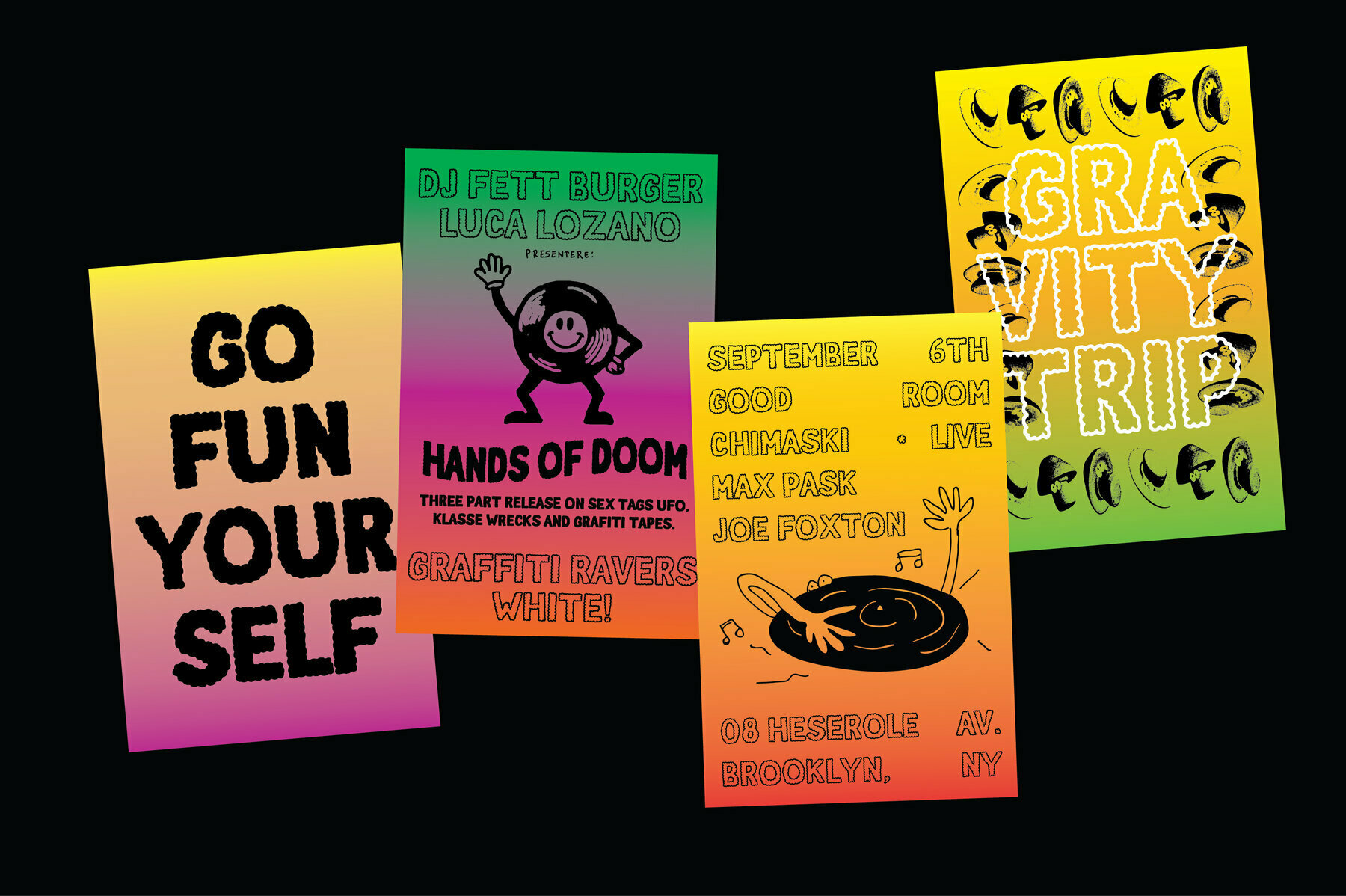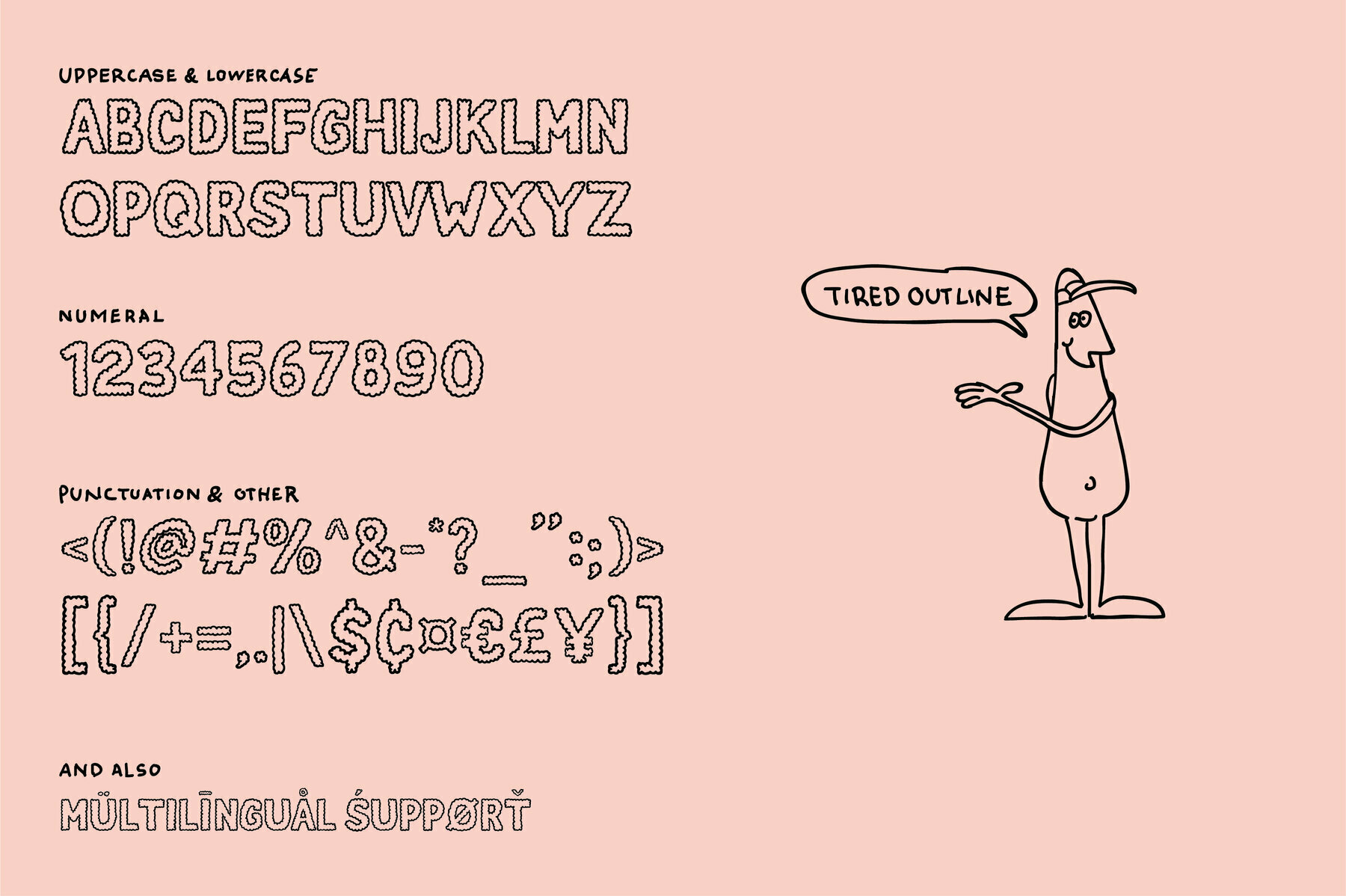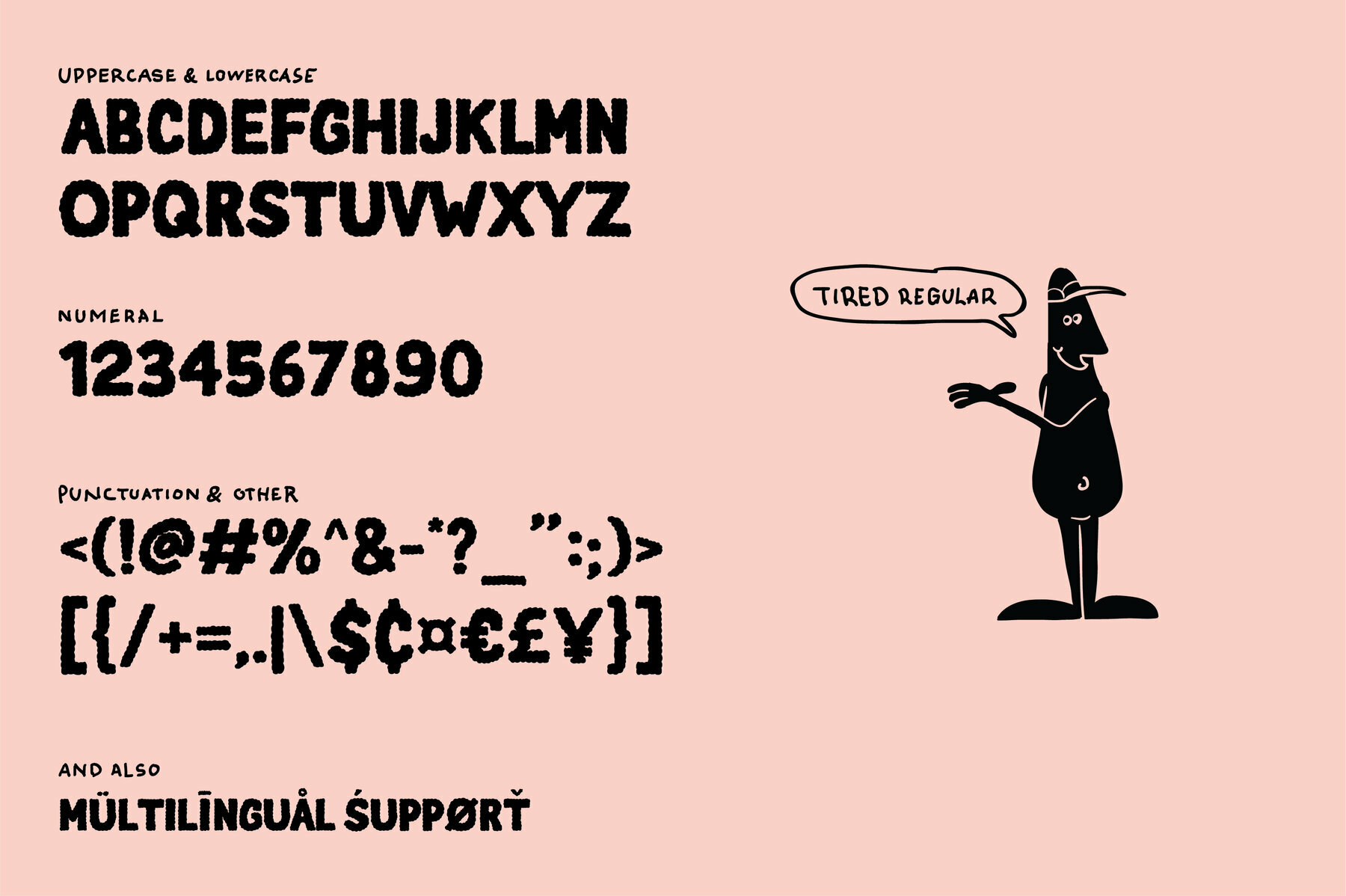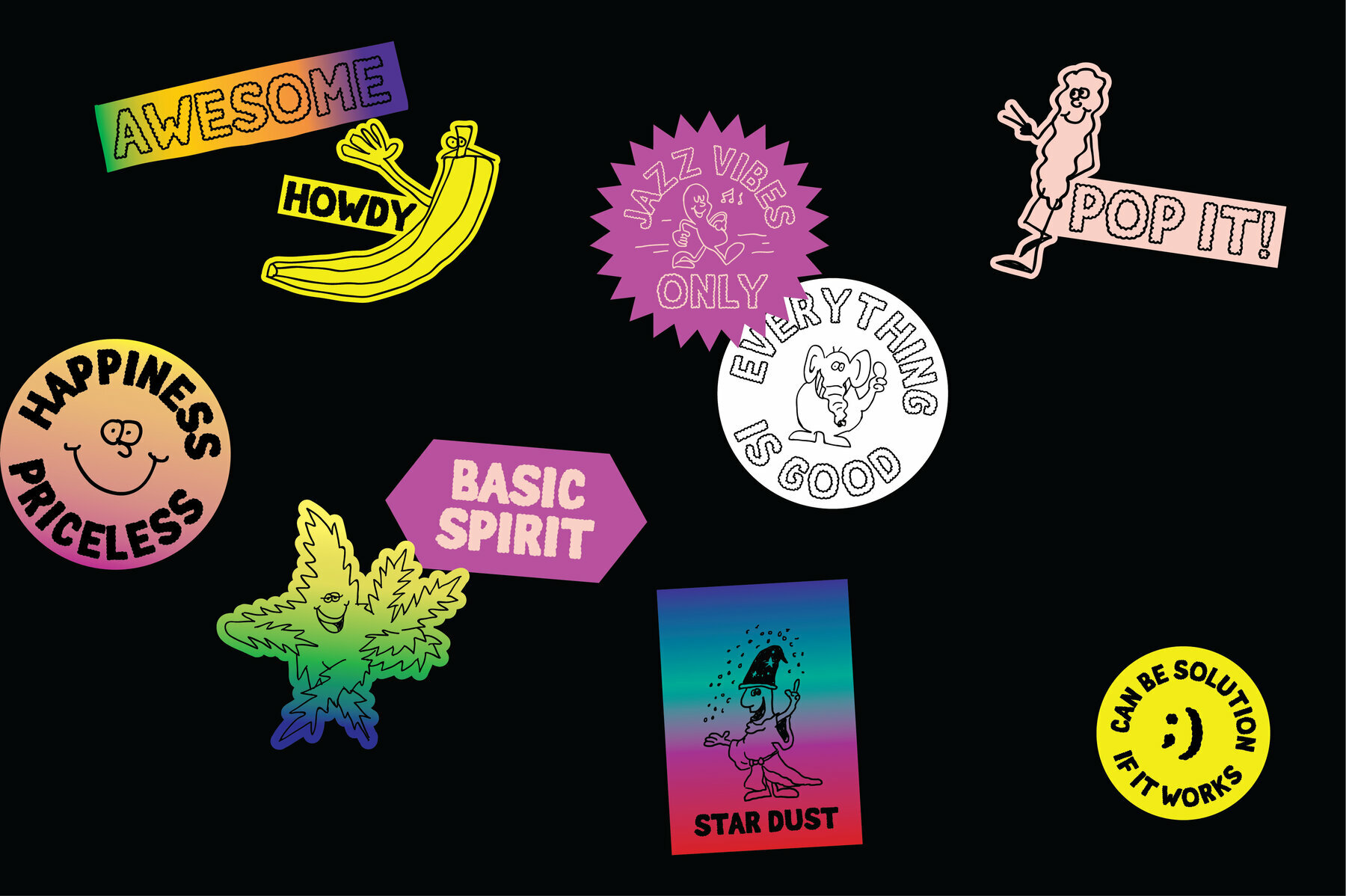
Tired Font
Tired Regular
Tired Outline
Flatface Tired It's a hand drawn display font with unique, easy going taste comes with 2 styles so playful for your personal or commercial projects. Suitable for logo, t-shirt, poster, flyer, print, business cards, branding materials and etc.